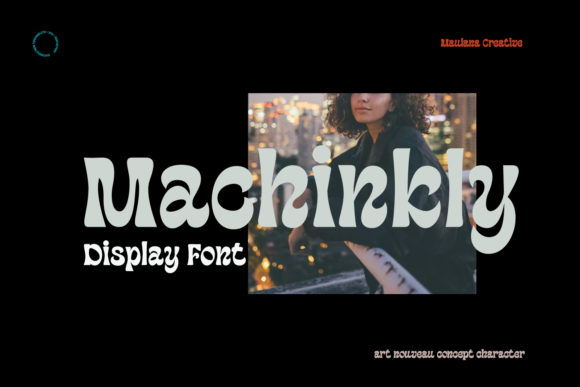
Behold, Machinkly Font, an enchanting display font that breathes life into your fantasy and sci-fi creations. Created by the masterful Maulana Creative, Machinkly's bouncy and quirky characters inject energy into your designs, bringing your imagination to life.
Unleash your storytelling prowess with Machinkly's captivating charm. Craft captivating titles that leap off the page, design spellbinding logos that cast a magical aura, and weave enigmatic posters that transport readers to distant realms. Let Machinkly's unique style elevate your work, enchanting your audience and captivating their imaginations.
With Machinkly, your words become portals to extraordinary worlds. Enchant your social media posts with captivating quotes, conjure breathtaking book covers that entice readers, and forge unforgettable invitations that spark a sense of wonder. Embrace Machinkly's whimsical essence and watch your creations transform into gateways to boundless imagination.
Dive into the boundless versatility of Machinkly. Experiment with its diverse range of applications and discover the endless possibilities it holds. From vibrant branding projects to captivating website designs, Machinkly adapts seamlessly, adding a touch of magic to every venture.